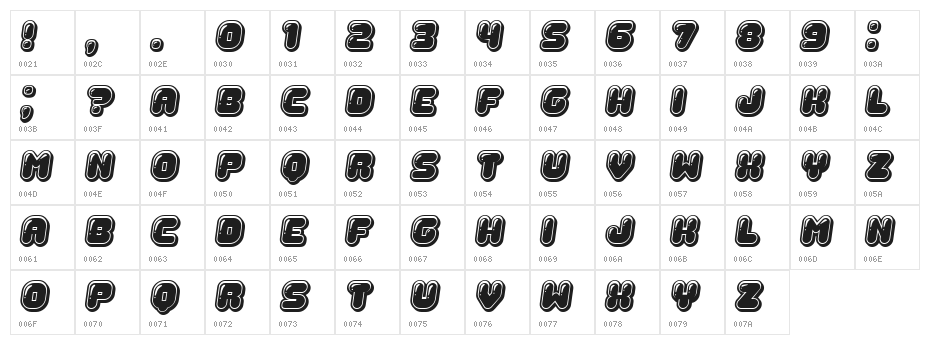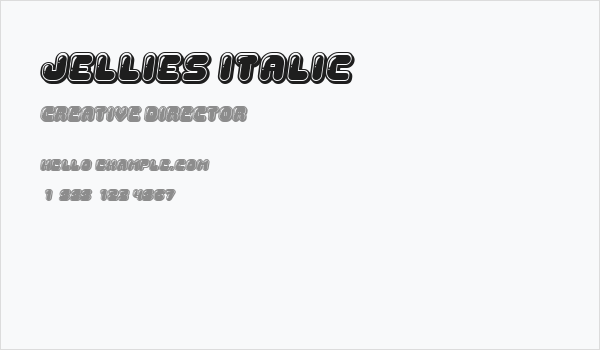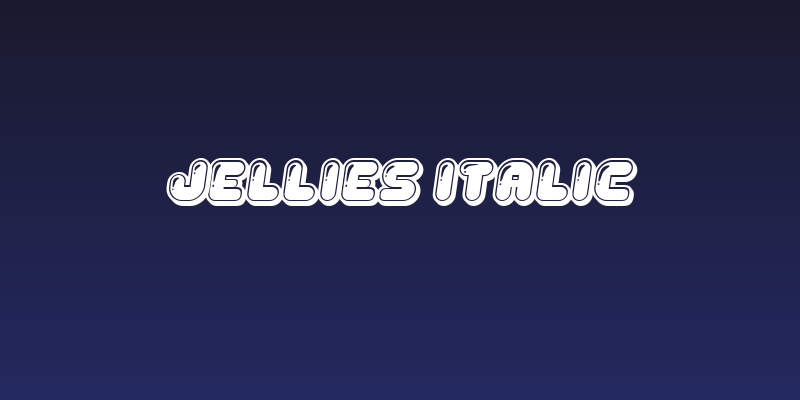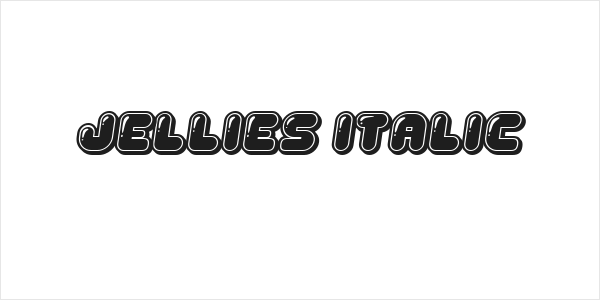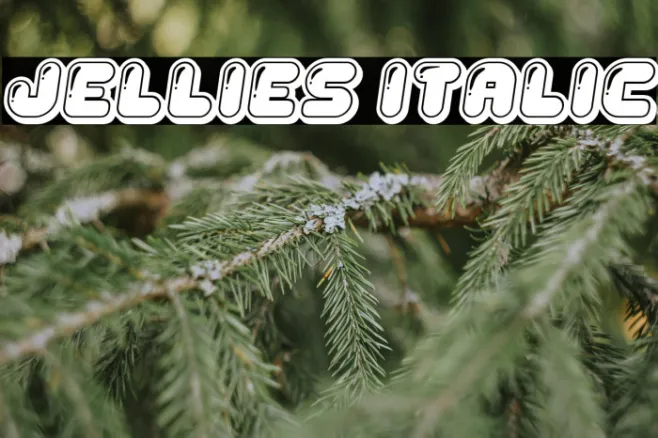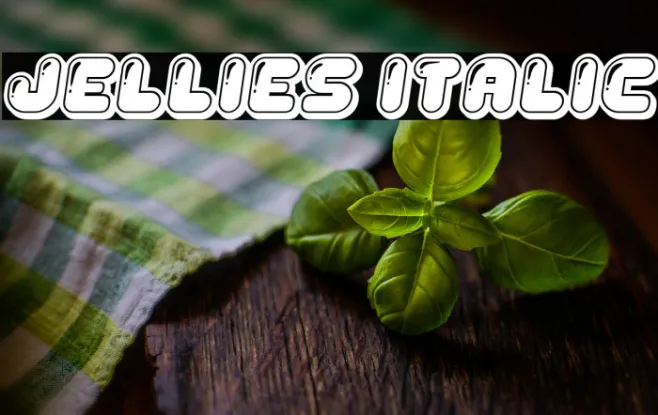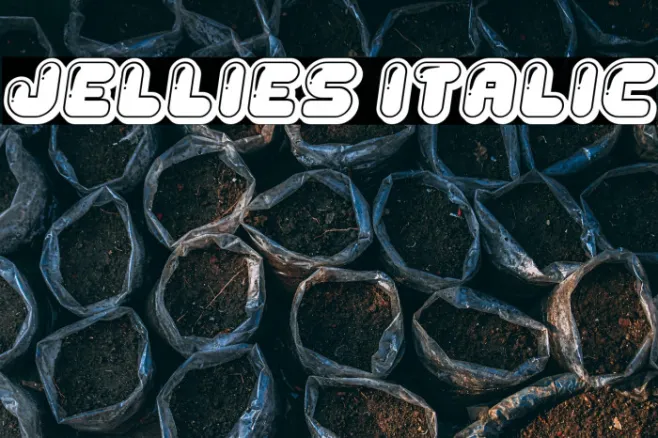
Jellies Italic Font
Jellies Italic Description
This playful and bold font features a bubble-like appearance with thick, rounded edges and a distinct outline that gives it a three-dimensional effect. The characters are uniformly wide, creating a cohesive look across the alphabet. The font's whimsical style is perfect for capturing attention and adding a fun, lively touch to any design. Its boldness ensures readability while the rounded forms provide a friendly and approachable feel. The italic slant adds a sense of motion and dynamism, making it suitable for creative and energetic projects.
| Overall Style | Playful, Modern |
| Proposed Projects | Ideal for children's books, playful branding, event posters, and creative social media graphics. |